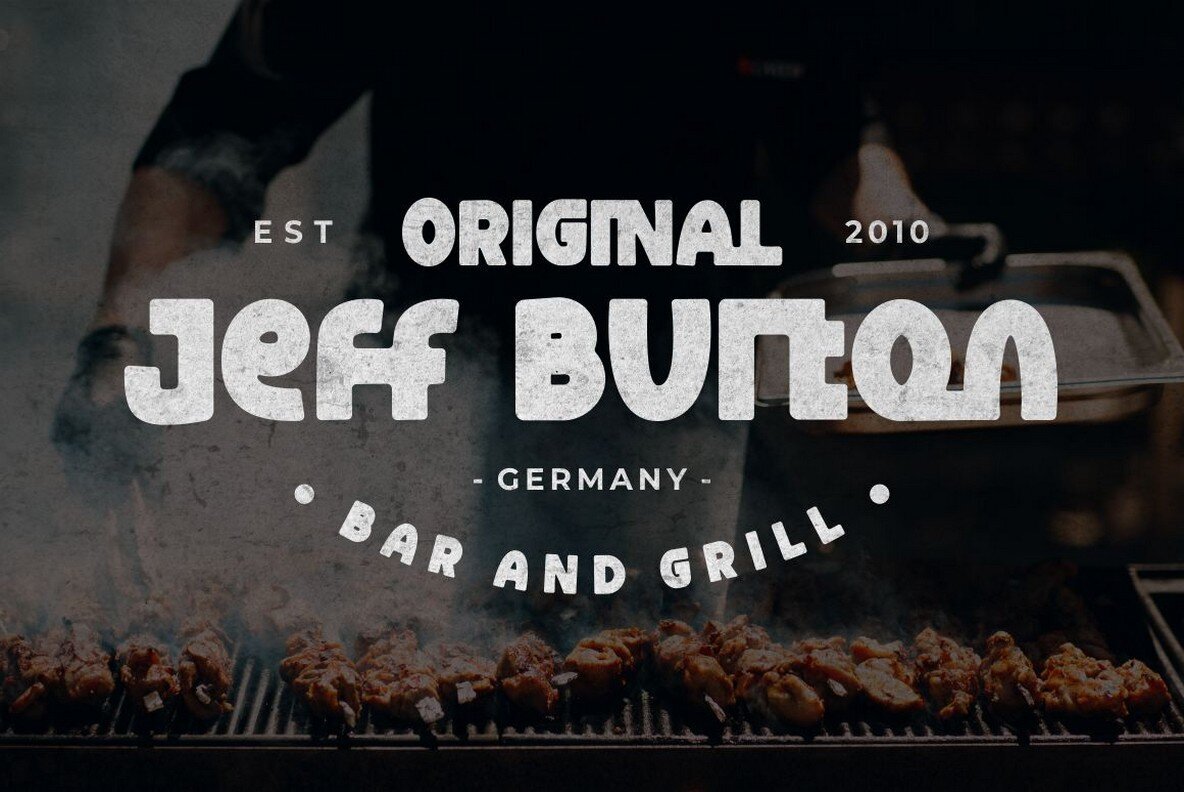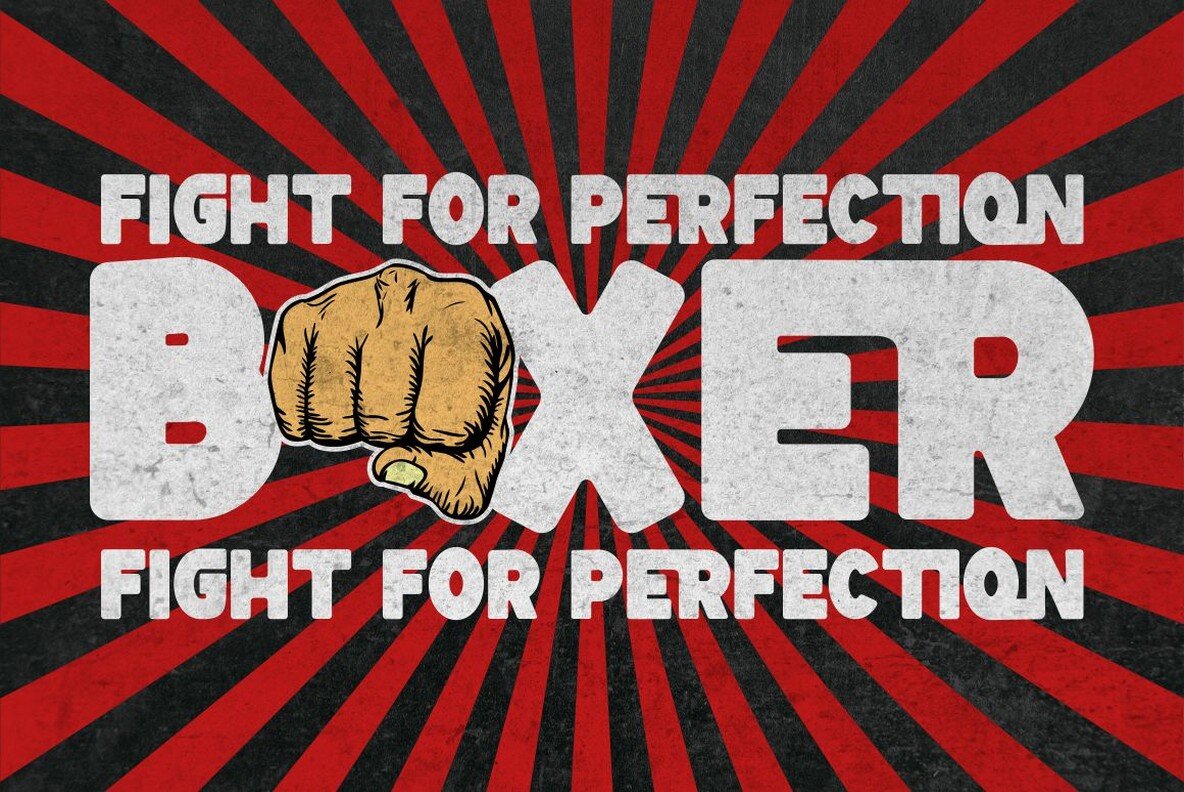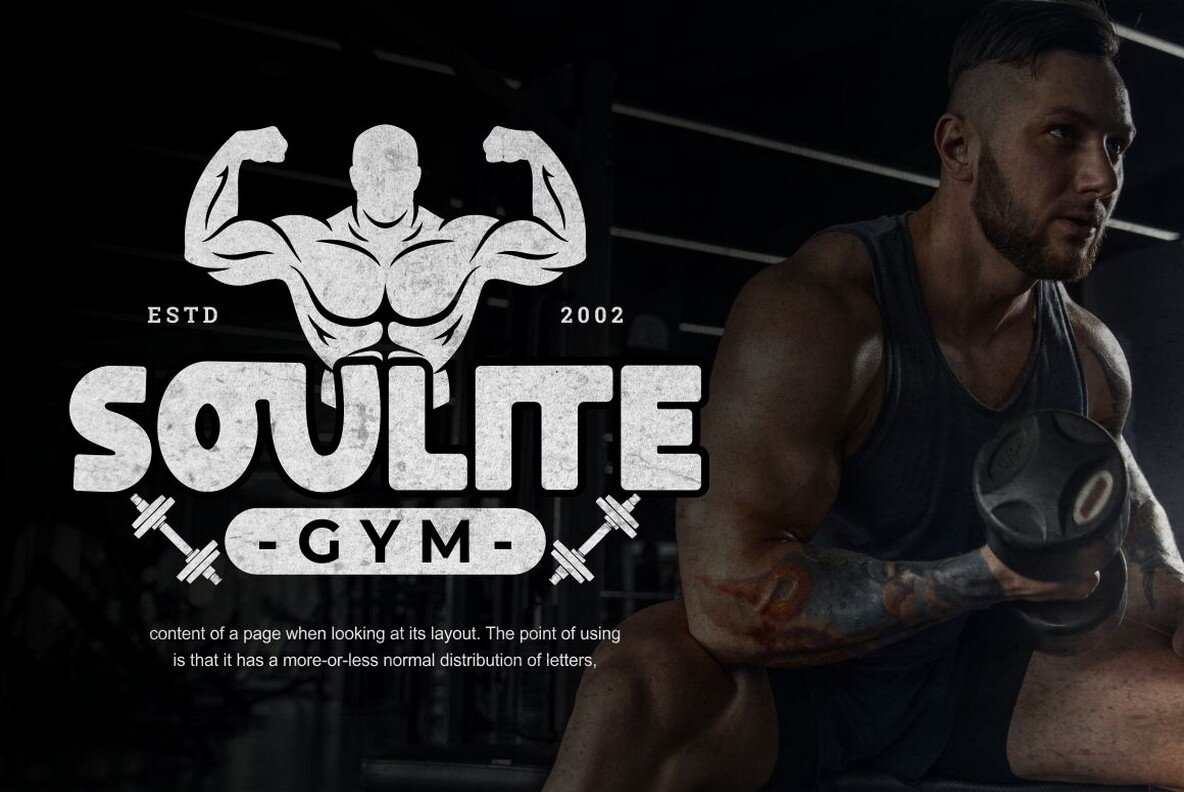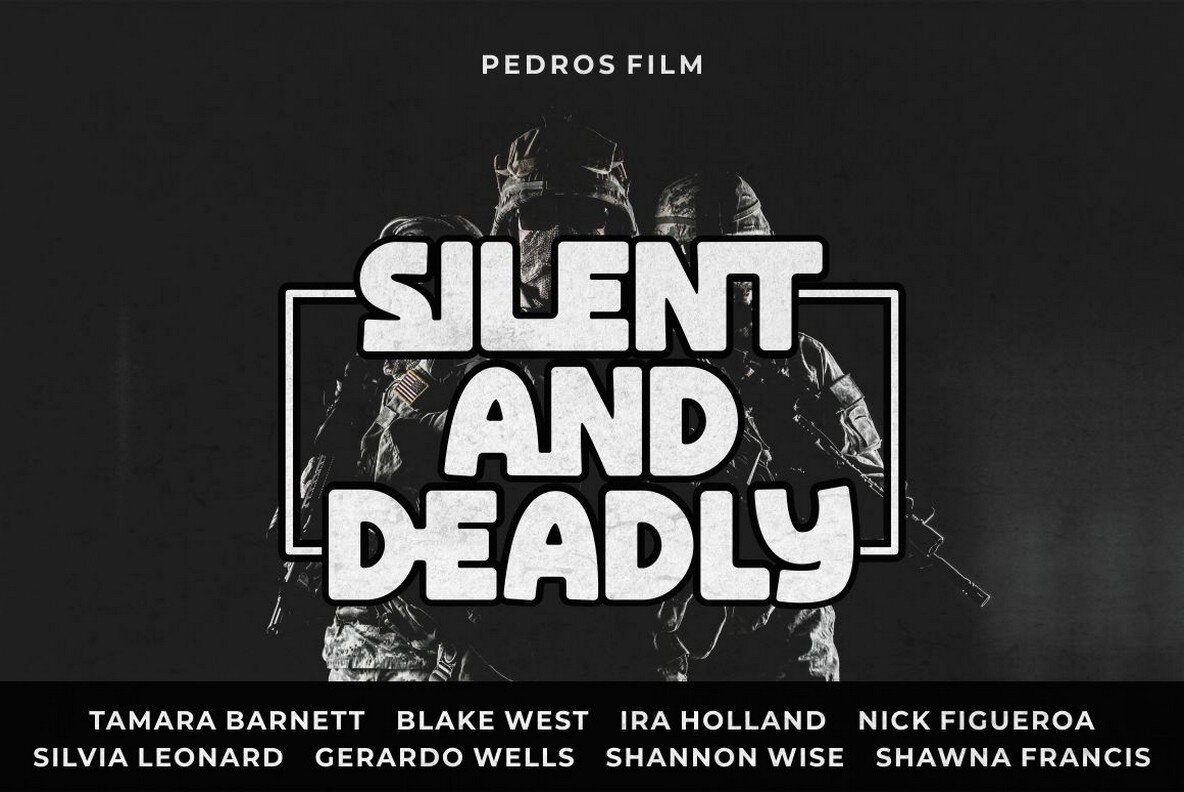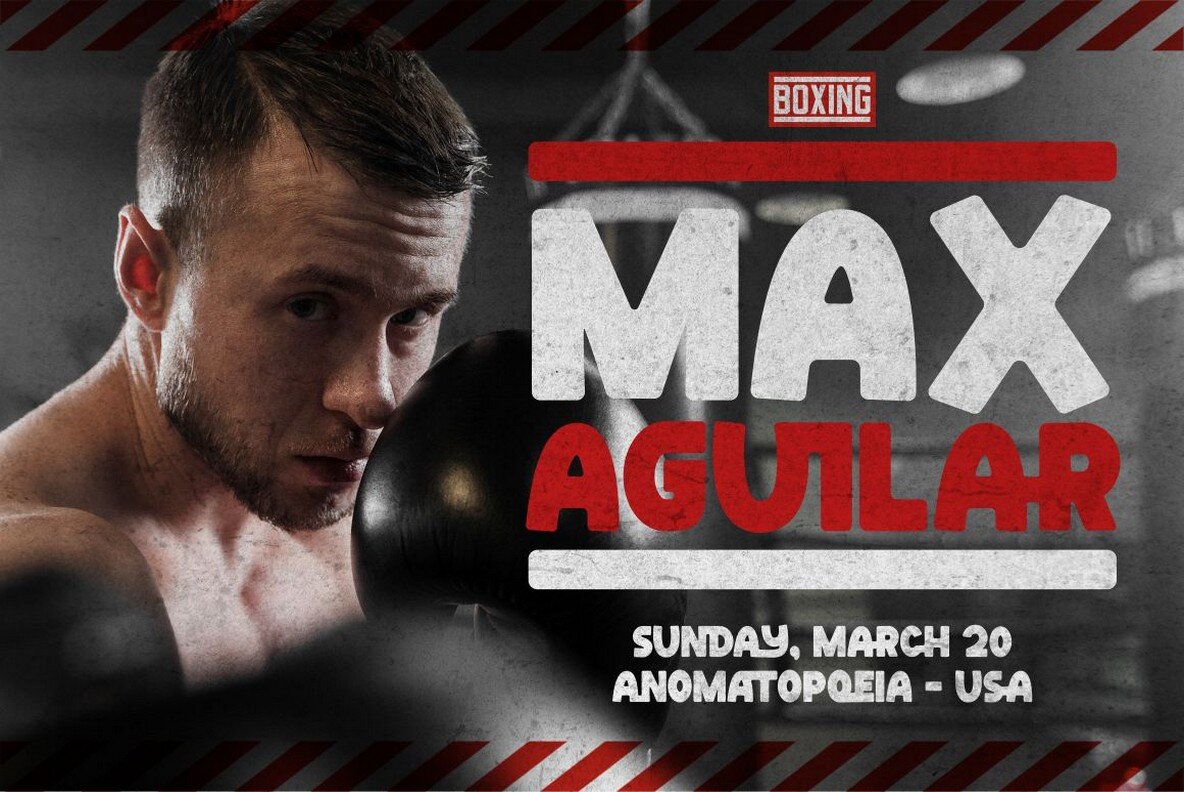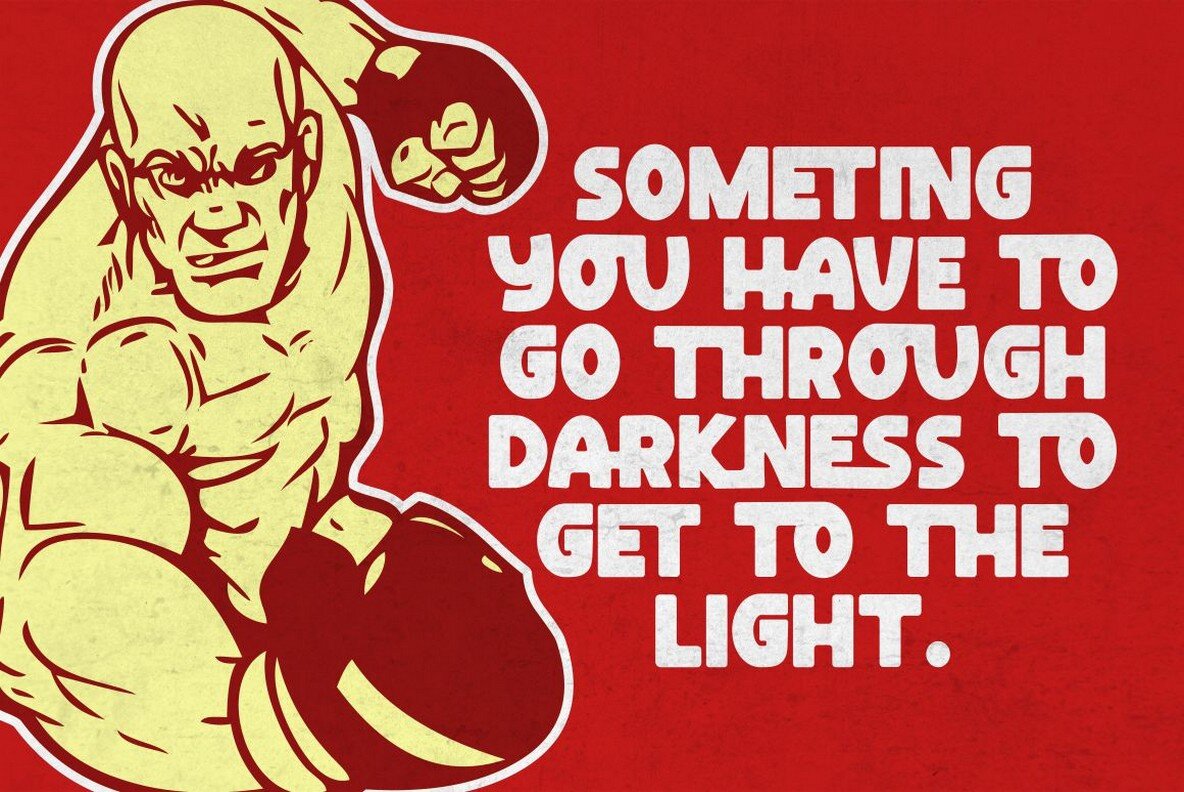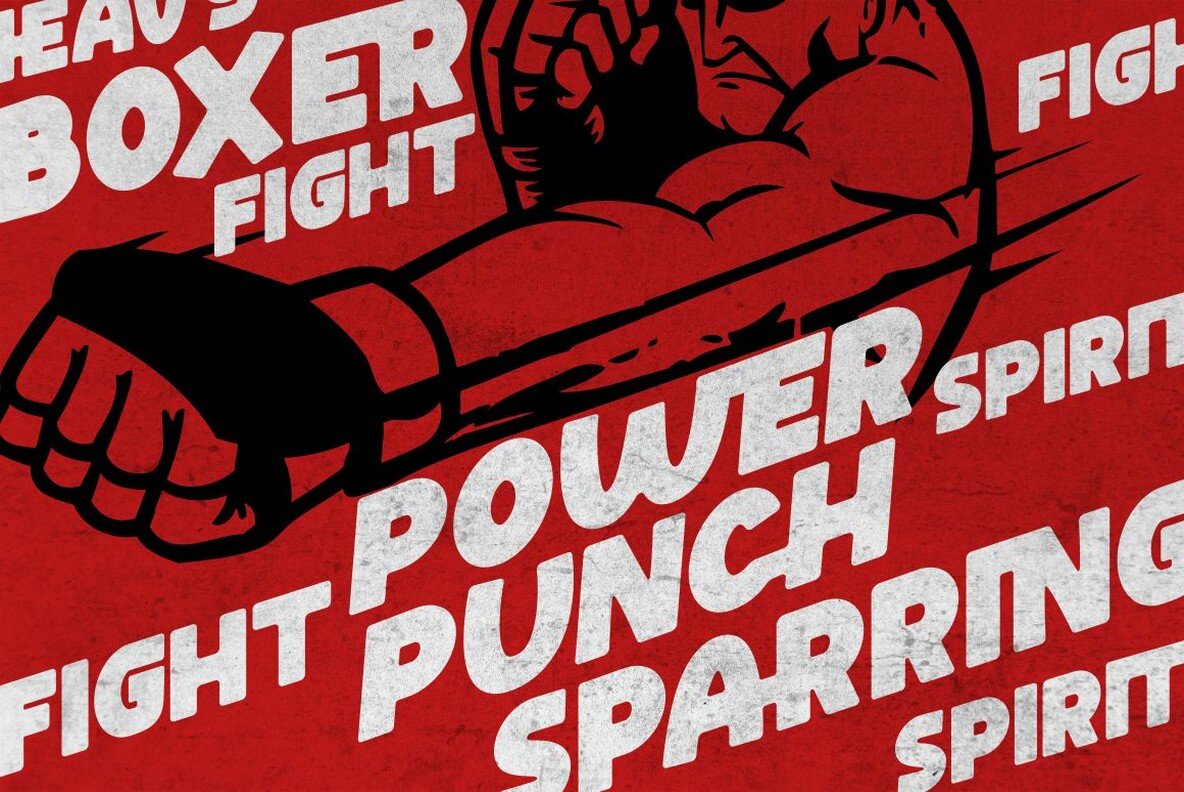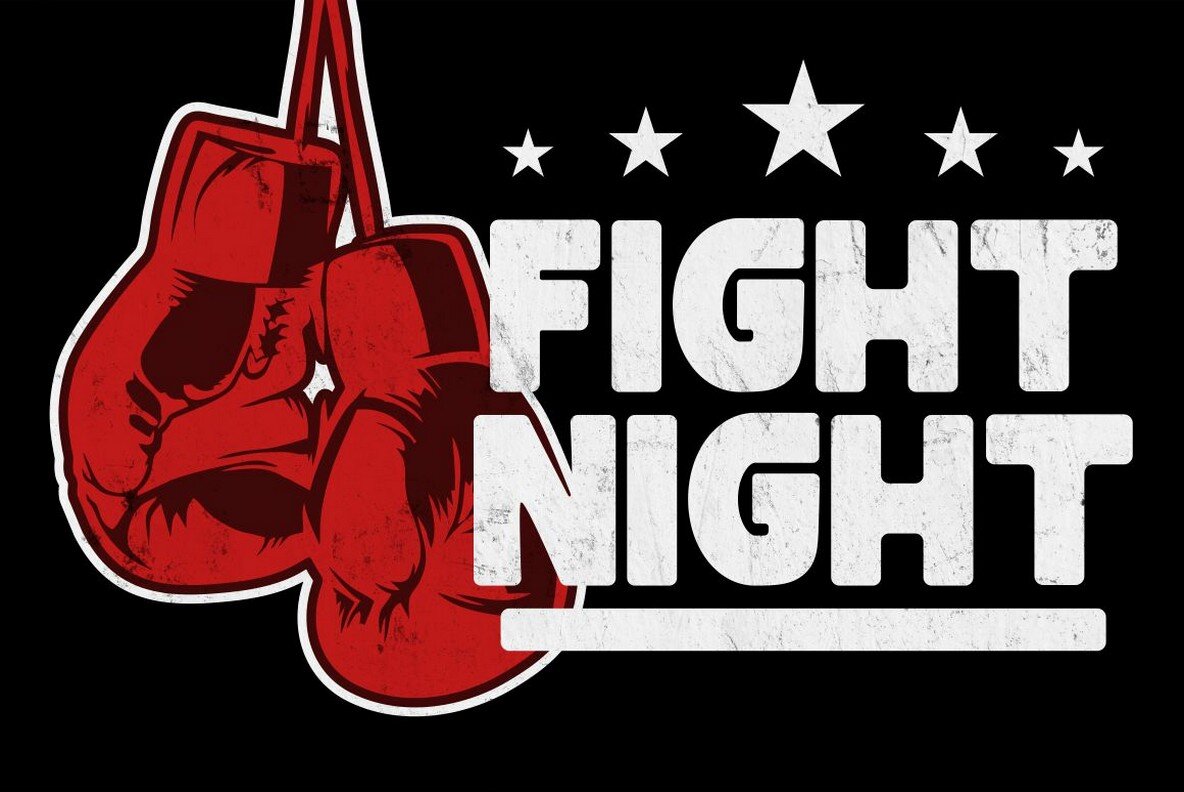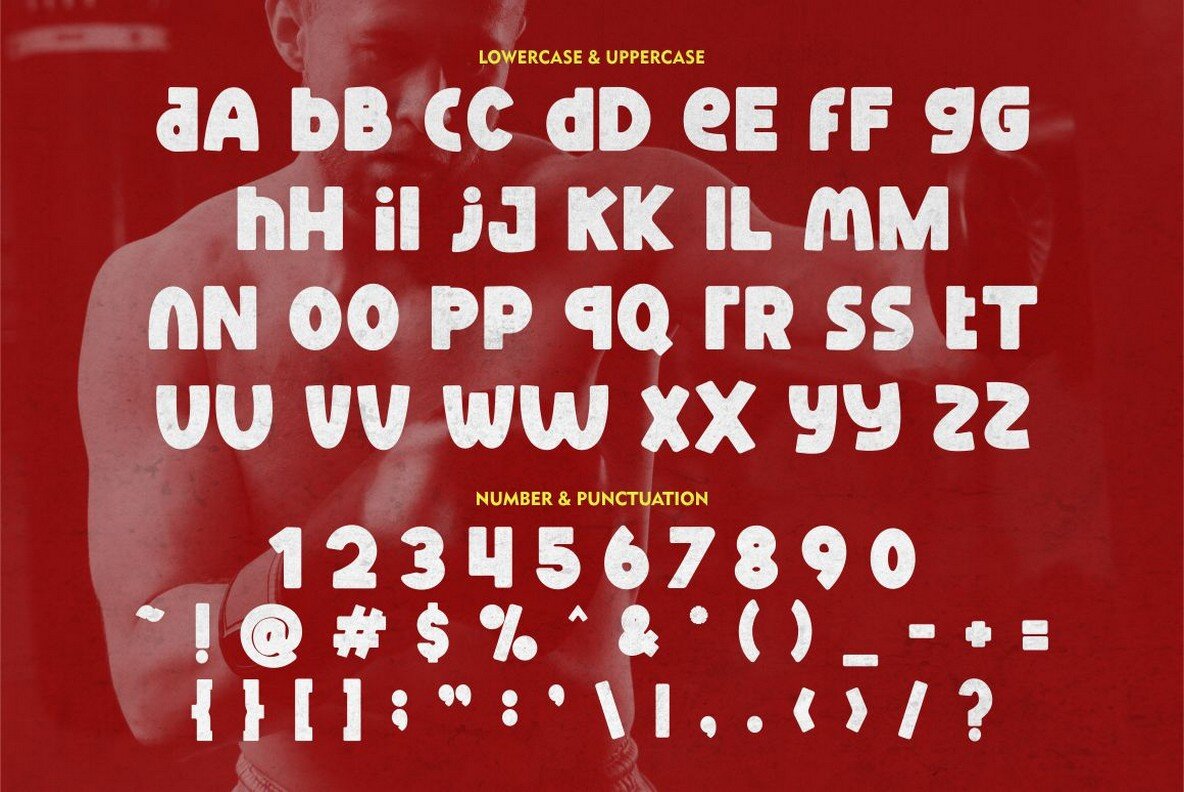
Boxer Punch - Soft Bold Font is a stylish and modern font designed to catch the attention of your audience. The font's unique design combines a soft bold shape with a cute sans serif, making it perfect for creating eye-catching designs. The idea behind creating Boxer Punch was to incorporate the concept of understated realism into the font. This is evident in the font's smooth and elegant lines, which make it perfect for a variety of design projects. The font is ideal for those looking to create a professional touch in their designs, while also maintaining a stylish and modern feel. Boxer Punch is an excellent choice for anyone looking for a font that is versatile and can be used in a variety of different contexts. It is perfect for sports-themed work projects, as well as branding, packaging, logo design, album covers, posters, and social media graphics. One of the standout features of Boxer Punch is its versatile OpenType features, including alternates and ligatures, which allow for even more creative freedom when designing with the font. Additionally, the font comes with uppercase and lowercase characters, as well as support for multilanguage, numbers, punctuation, and symbols. Inside the font package, you'll find three different file formats: Boxer Punch otf, Boxer Punch ttf, and Boxer Punch woff. This means that no matter what platform you are using, Boxer Punch will work seamlessly with your software. Boxer Punch is a font that is sure to make your designs stand out from the crowd. Its unique design and versatile features make it perfect for anyone looking to add a touch of elegance and style to their work. If you're looking for a stylish and modern font that is perfect for sports-themed work projects or a variety of other design projects, then Boxer Punch is the font for you. In summary, Boxer Punch - Soft Bold Font is a versatile and modern font that combines a soft bold shape with a cute sans serif to create a unique and stylish design. With its versatile OpenType features, multilanguage support, and uppercase and lowercase characters, Boxer Punch is perfect for a wide range of design projects.